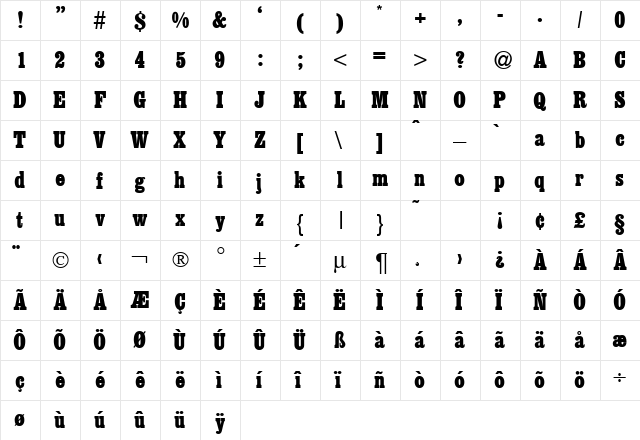
EggerSmallDB Normal
Design Context for EggerSmallDB Typeface
EggerSmallDB takes a measured approach to typography — its balanced proportions and neutral character make it a reliable workhorse for both digital and print work.
Pro Tip: Use EggerSmallDB in both headline and body roles to test its range before committing to a single application.